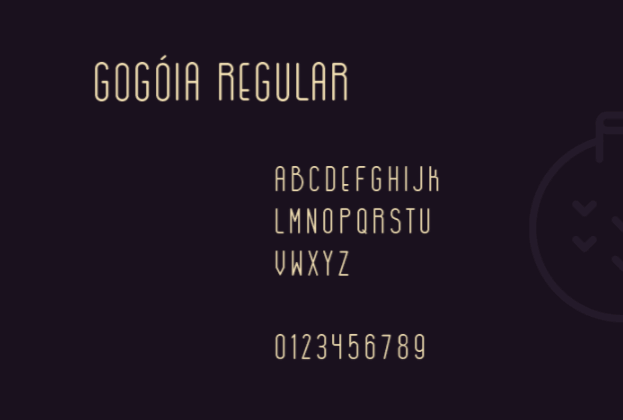
Gogoia is a sweet and sour display font. The tropical of Brazil influences it. It’s also a thorny fruit that only grows in dry climates. And, guess what? Gogoia is also a well-known song performed by Gal Costa. This font is free to use under a creative commons license for personal purposes. Alan de Sousa created and published this font.
Gogoia is the ideal Typeface for all of your whimsical designs. The Gogoia may be used to make unique designs, covers, shop and store names, and logos. This font is also ideal for branding initiatives, homeware designs, product packaging, and as a classy text overlay on any background image. The font is also suitable for use on greeting cards.